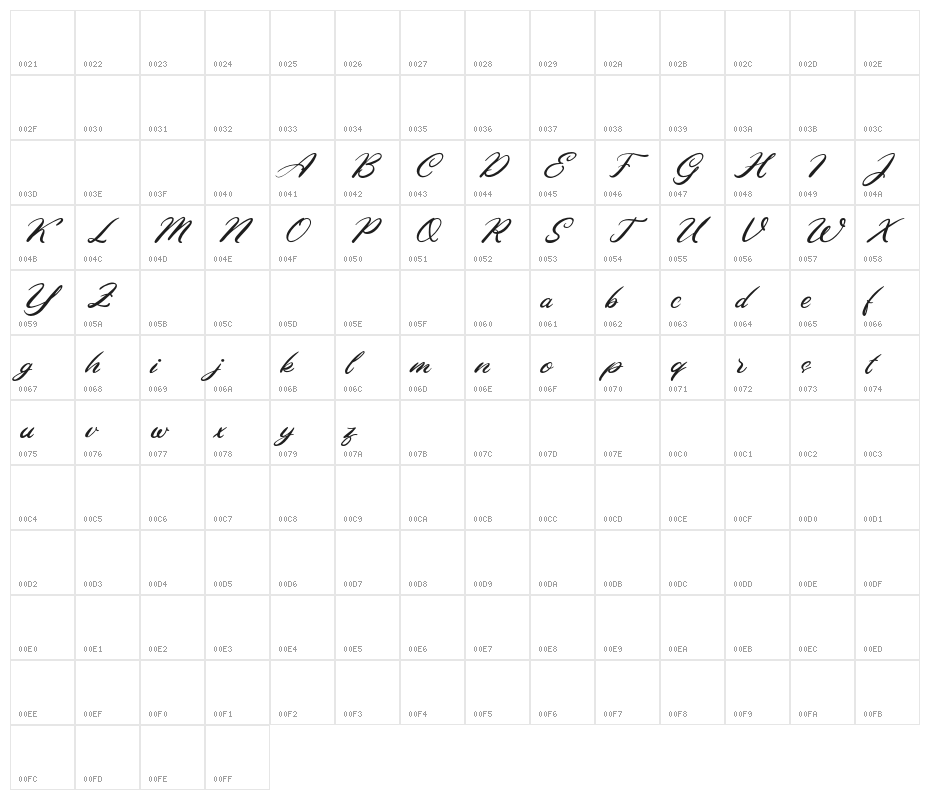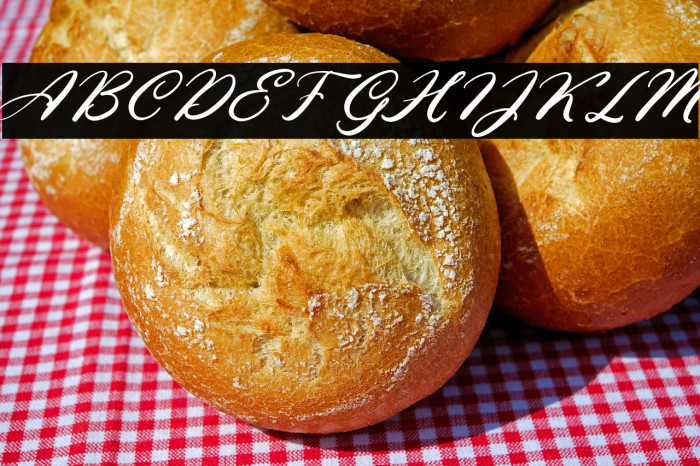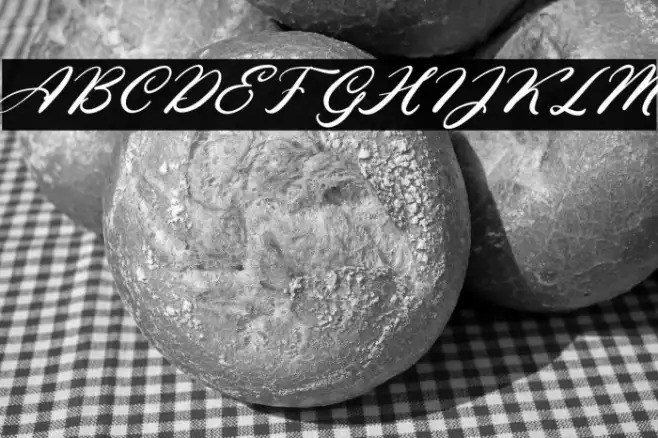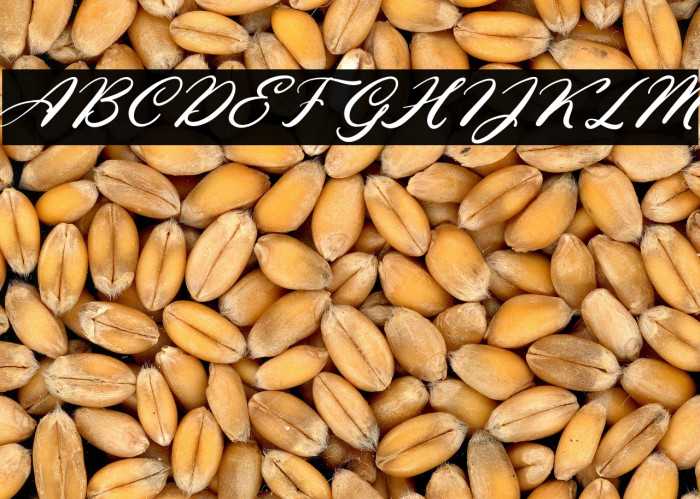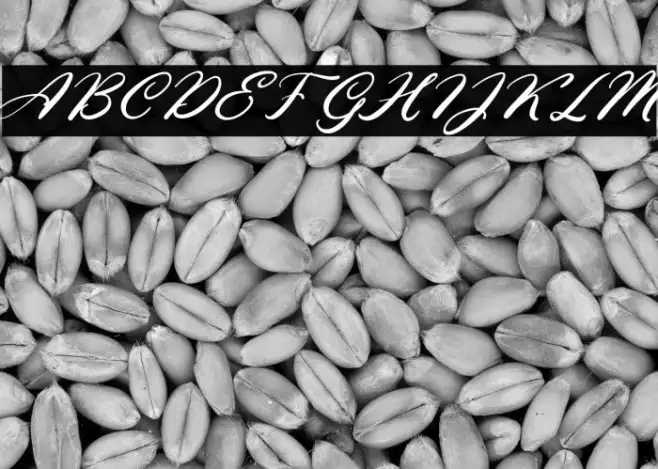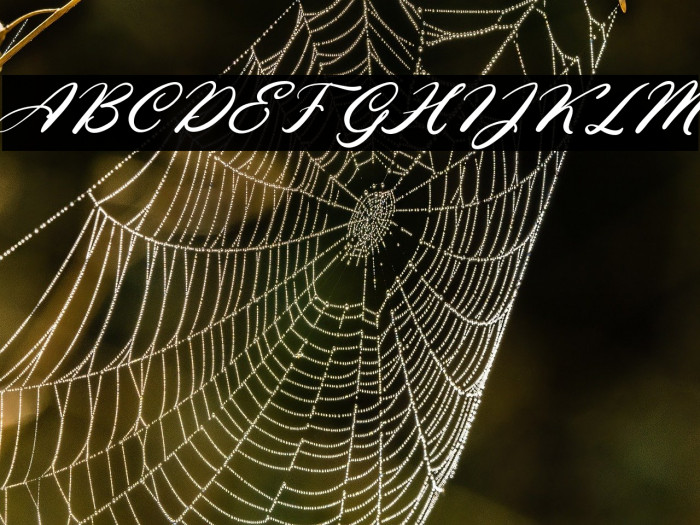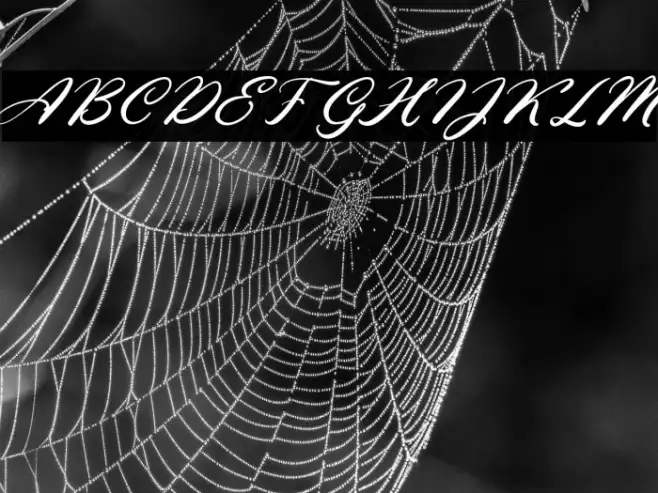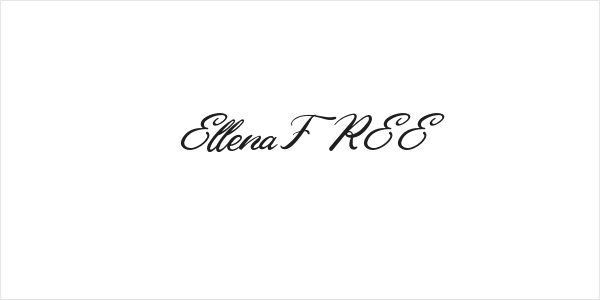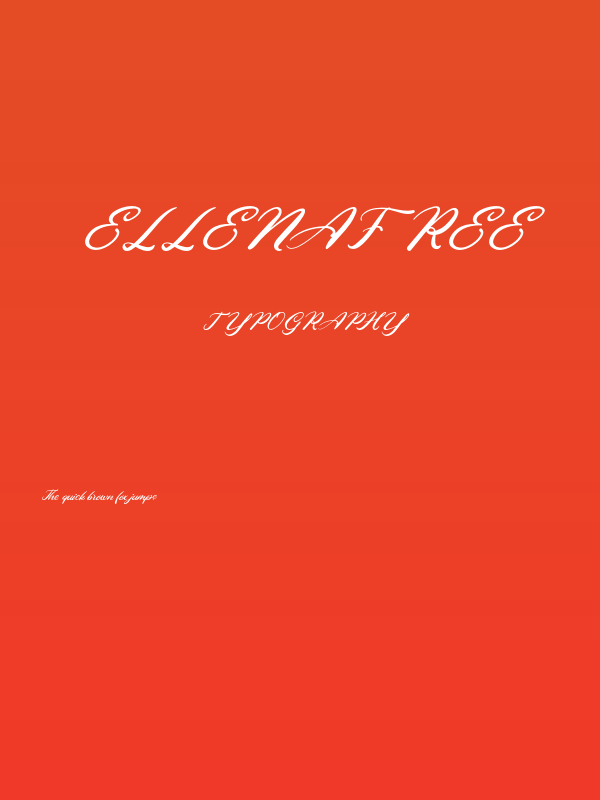
EllenaFREE Font
EllenaFREE Description
This elegant script font features a flowing, cursive style with smooth, connected strokes that mimic the fluidity of handwritten calligraphy. The uppercase letters are ornate and slightly larger, providing a graceful contrast to the more compact lowercase letters. The font maintains a consistent stroke width, giving it a harmonious and balanced appearance. Its decorative nature is enhanced by subtle flourishes and loops, particularly in the capital letters, which add a touch of sophistication. The overall design is both classic and modern, making it versatile for various applications.
| Proposed Projects | Ideal for wedding invitations, greeting cards, branding, and elegant logos. |